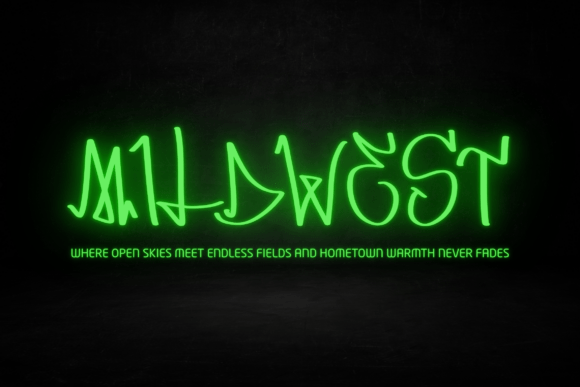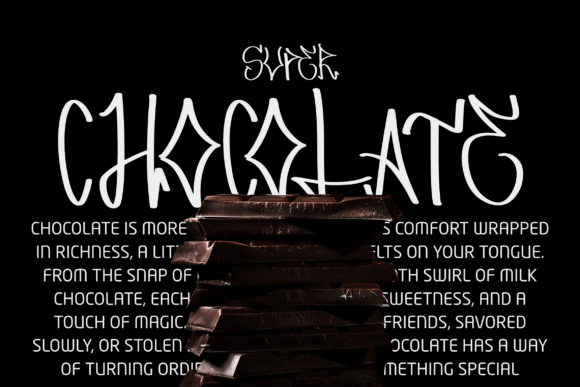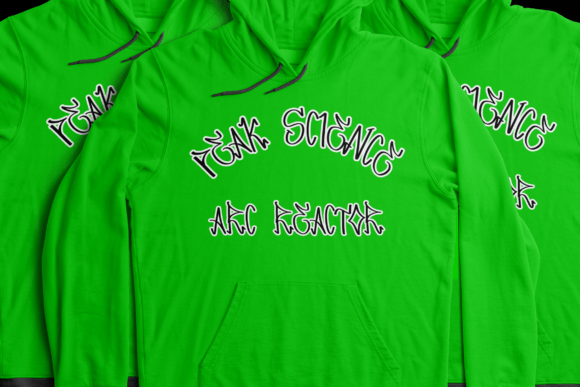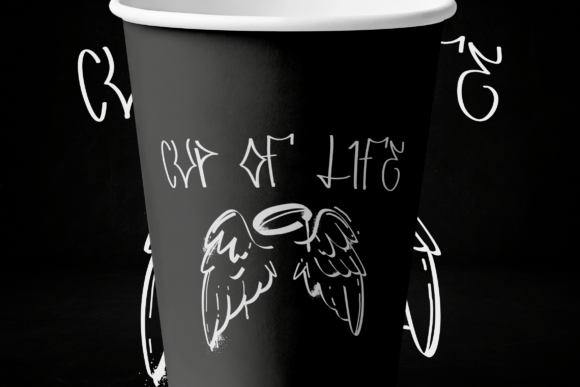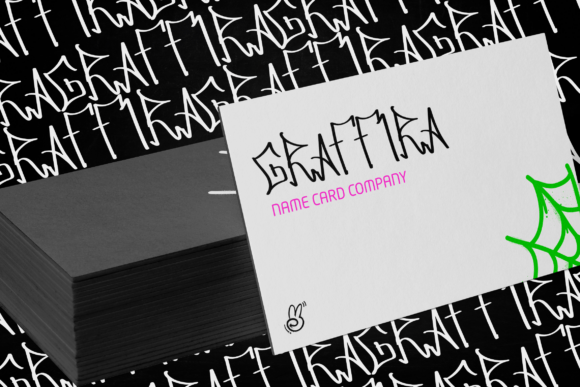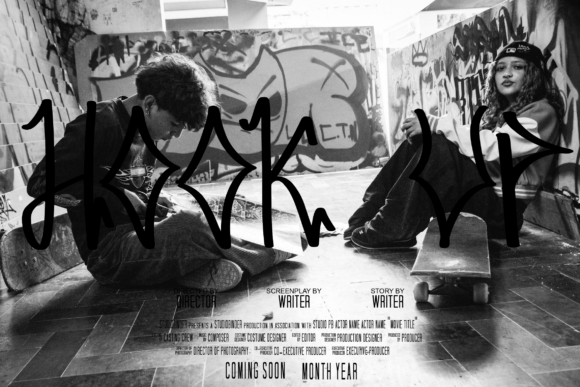
Unleashing the Urban Edge: A Deep Dive into Graffira Font
I still remember the design project that led me to discover Graffira Font. I was working on a streetwear branding campaign, and my client wanted a font that would capture the raw energy of urban culture. I scoured the internet for hours, but nothing seemed quite right – until I stumbled upon Graffira. Its bold, graffiti-inspired strokes and sharp edges instantly resonated with the vibe I was trying to achieve. I knew right then and there that Graffira was the perfect fit for the job.
A Personal Review: The Good, the Bad, and the Quirky
What I Love About Graffira ✨
- ✅ Dynamic strokes: Graffira’s bold, expressive strokes add a level of personality to any design.
- ✅ Urban vibe: The font’s street-art-inspired aesthetic is perfect for designs that require an edgy, modern feel.
- ✅ Versatility: Despite its bold personality, Graffira remains surprisingly versatile and can be used for a wide range of projects.
- ✅ Professional quality: The font’s structure is well-crafted, making it suitable for both personal and commercial use.
Small Quirks and Limitations 🤔
While Graffira is an excellent font, it’s not without its limitations. For instance:
- ⚠️ Legibility at small sizes: Graffira’s bold strokes can make it challenging to read at very small font sizes.
- ⚠️ Limited suitability for body text: Due to its bold nature, Graffira is best used for headlines, titles, or short paragraphs rather than lengthy body text.
One of the standout features of Graffira is its support for OpenType features and glyphs. These allow you to:
- Access stylistic alternates to add more variety to your text.
- Use glyphs to add special characters and icons to your design.
The Backstory Behind Graffira
Graffira was designed by a team of creatives who wanted to capture the essence of urban street art in a font. Inspired by the graffiti culture of the 1980s and 1990s, they aimed to create a typeface that would bring raw energy and personality to designs. The result is a font that’s both bold and versatile, perfect for a wide range of creative projects.
Q: What type of projects is Graffira best suited for?
A: Graffira is perfect for designs that require a bold, urban edge, such as streetwear branding, music covers, posters, and social media graphics.
Q: Is Graffira suitable for body text?
A: While Graffira can be used for short paragraphs, it’s primarily designed for headlines and titles. Its bold nature may make it challenging to read for extended periods.